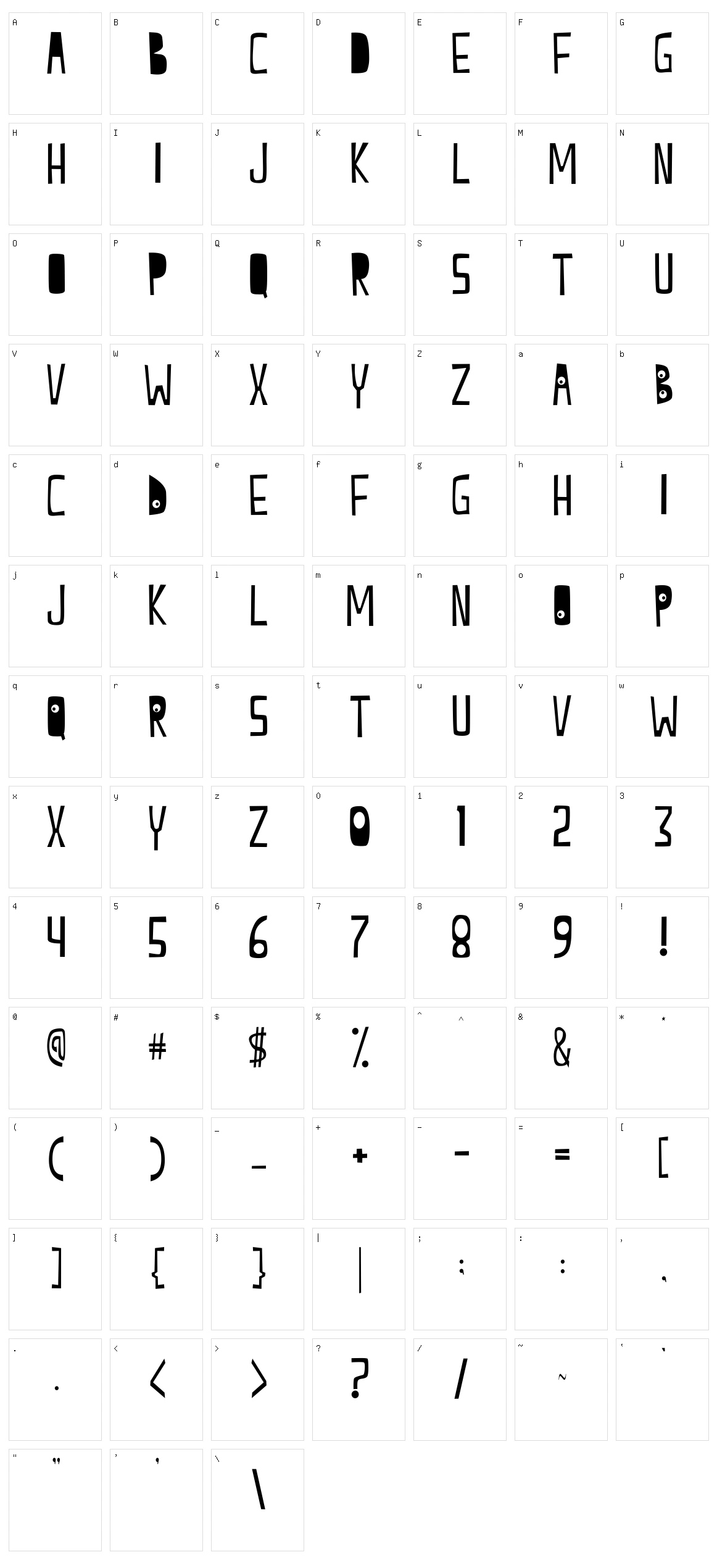
Citrus
By Eric Wiryanata. 11 January 2008.
my first font for the year 2008. Named after a sour fruit, and also a song's titled by Asobi Seksu
Note#2: This typeface is ideal for logos and general design.
It isn't very suitable to be used with word-processors as it lacks some symbols and letters.